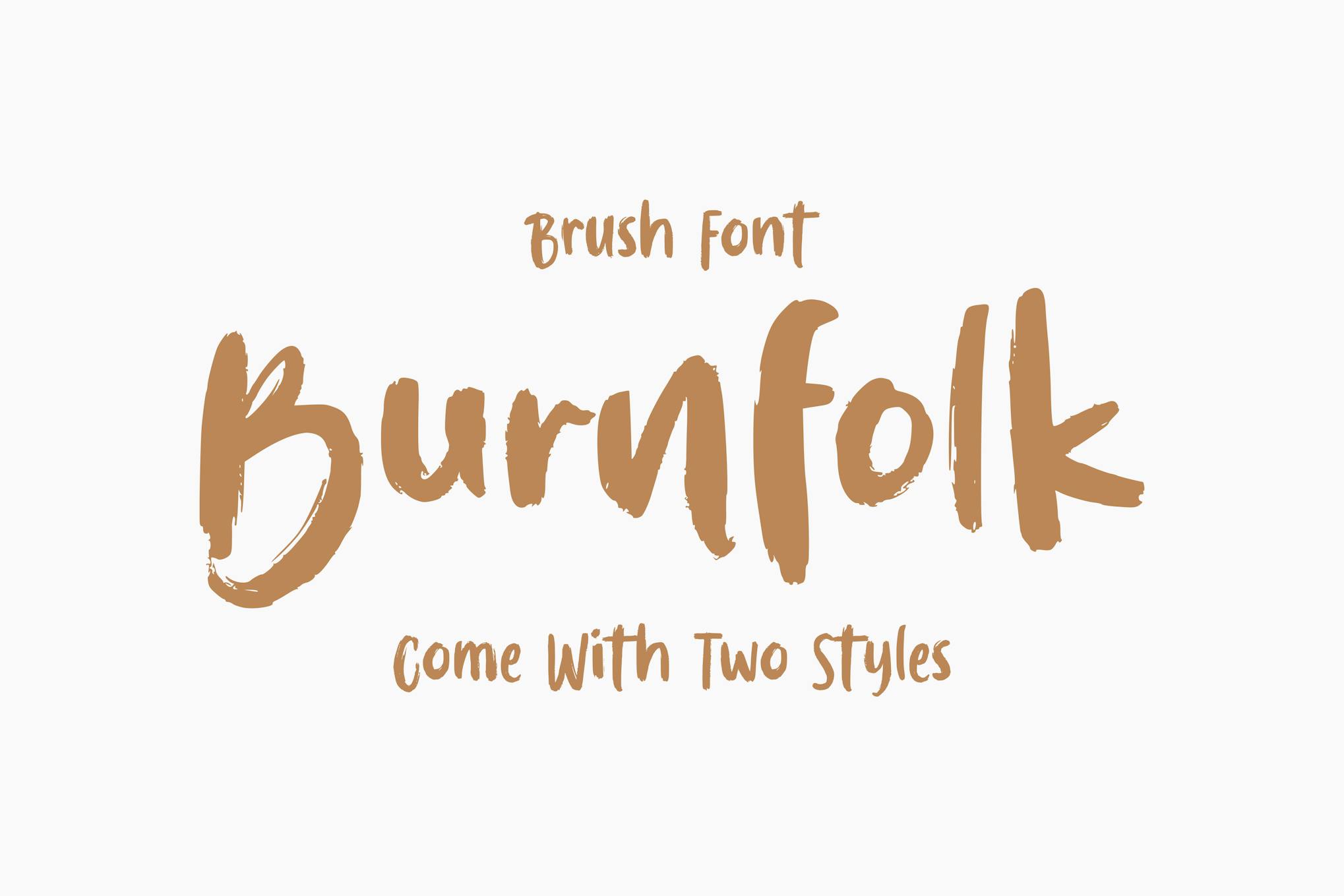
AL - Burnfolk Font
AL - Burnfolk Font Free Download is a typeface with a raw, rebellious spirit, designed for projects that demand a bold, powerful statement. For commercial use, you must purchase this font, but you can download it for free for testing purposes. This versatile font is perfect for a variety of projects, including vintage branding, whiskey labels, t-shirt designs, heavy metal posters, and adventure-themed logos. What makes this font so exciting is its genuine, distressed texture and hand-drawn imperfections, which give it a rugged and unforgettable character. The AL - Burnfolk font family includes a range of styles, such as Regular Rough, Bold Rough, and an Inline style, providing you with a complete and flexible design solution.
This isn't just a font; it’s an attitude. The design of AL - Burnfolk is inspired by a blend of old-school sign painting and grunge aesthetics, with its gritty texture and slightly uneven letterforms. Its distinctive, commanding look ensures that your headlines and titles will be both memorable and highly impactful. Whether you’re a designer creating branding for a craft brewery, a band designing merchandise, or a creative working on a project that needs a strong, aggressive personality, this font provides the perfect foundation. The distressed aesthetic adds a layer of authentic wear and tear that makes your work feel real, raw, and full of character.
The versatility of the AL - Burnfolk family is one of its greatest strengths. You can use the bold rough weight for powerful, attention-grabbing headlines, while the regular rough version works well for supporting text that still retains a rugged charm. The inline style offers a different way to present your text, adding an extra layer of visual interest and allowing for more complex typographic compositions. This flexibility makes it an invaluable asset for designers who need to create custom content that feels authentic and impactful. It's a font that works hard, delivering a look that is both vintage and highly relevant for modern, edgy designs.